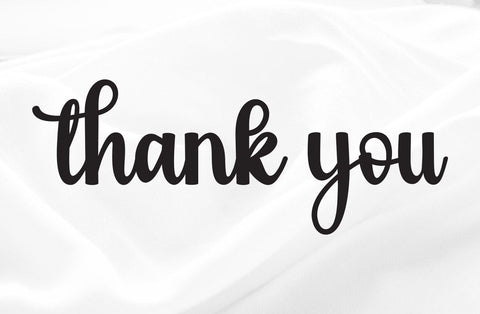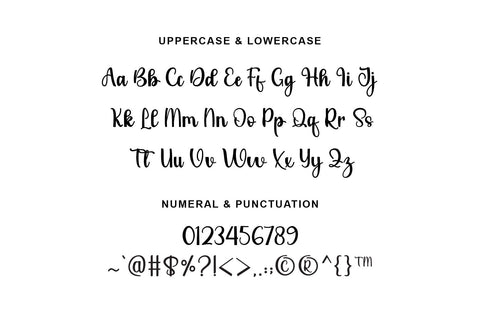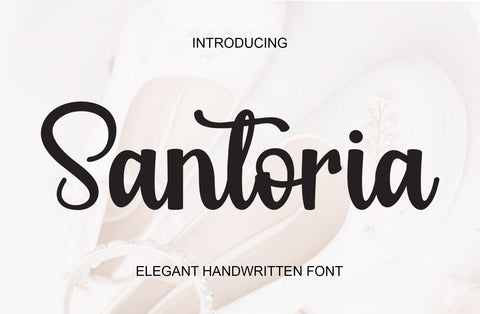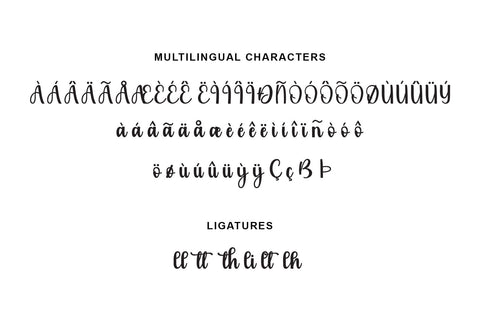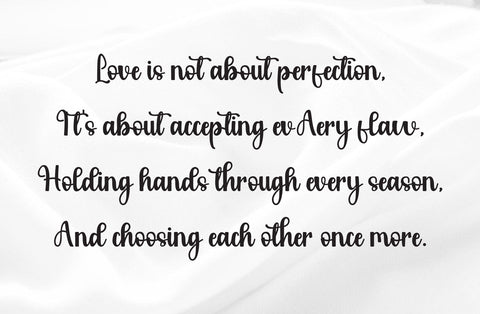
Santoria - Elegant Script Font
Santoria is a beautiful handwritten script font crafted with elegant curves and a graceful personality. Designed to bring a natural and stylish touch to your creative projects, Santoria combines smooth letterforms with excellent readability, making it both attractive and versatile.
Featuring complete uppercase and lowercase letters, numerals, and punctuation, Santoria is perfect for branding, logos, wedding invitations, greeting cards, social media content, product packaging, quotes, book covers, and craft projects. Its charming handwritten style adds warmth and sophistication to any design.